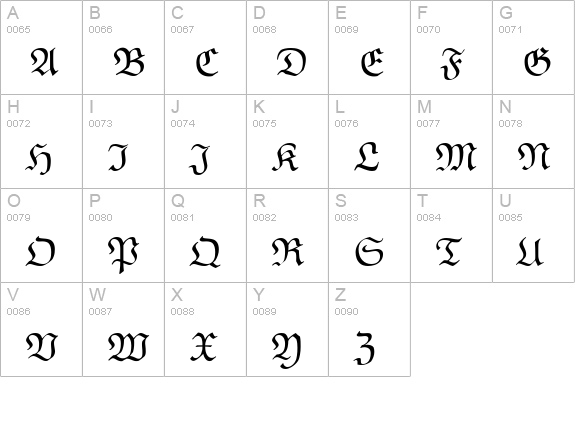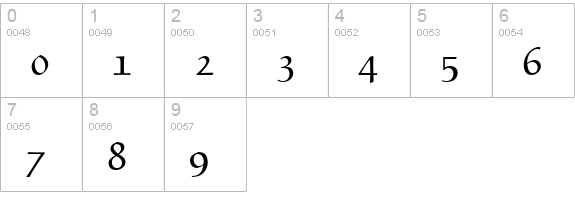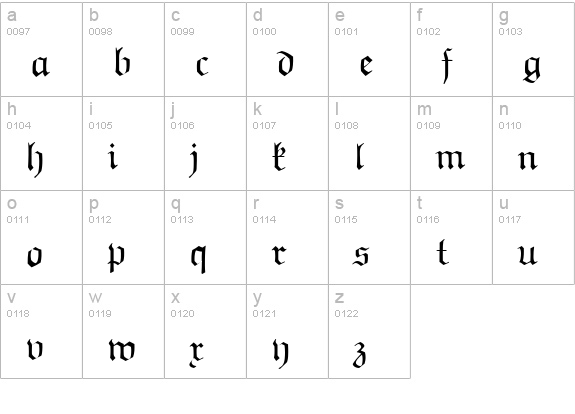
TeXplus EF is a magnificent font that combines elegance and versatility in a truly remarkable way. With its sleek and sophisticated design, this font is perfect for a wide range of design projects, from professional documents to creative artwork. What sets TeXplus EF apart is the fact that it is not only visually stunning, but also completely free. Yes, you read that right – this remarkable font is freely available to download at FontsMarket.com. This means that you can enhance your designs with a premium-quality font without spending a single penny. Whether you are a graphic designer, a web developer, or a typography enthusiast, TeXplus EF is a must-have in your font collection. Its clean lines and well-balanced proportions make it incredibly versatile, allowing you to use it in a multitude of design applications. The attention to detail in TeXplus EF is truly exceptional. Every curve and every stroke has been meticulously crafted to ensure a harmonious and visually pleasing result. The characters flow seamlessly and effortlessly, making for a smooth reading experience. From its elegant uppercase letters to its beautifully designed lowercase characters, TeXplus EF offers a complete set of glyphs that will satisfy even the most discerning typographers. Additionally, the font includes a wide range of punctuation marks and symbols, ensuring that you have everything you need to create stunning designs. Whether you are working on a branding project, a magazine layout, or a website design, TeXplus EF will bring a touch of sophistication and refinement to your work. Its timeless design ensures that it will remain relevant and visually appealing for years to come. So why wait? Head over to FontsMarket.com and download TeXplus EF for free today. Elevate your designs with this stunning font and unleash your creativity like never before.